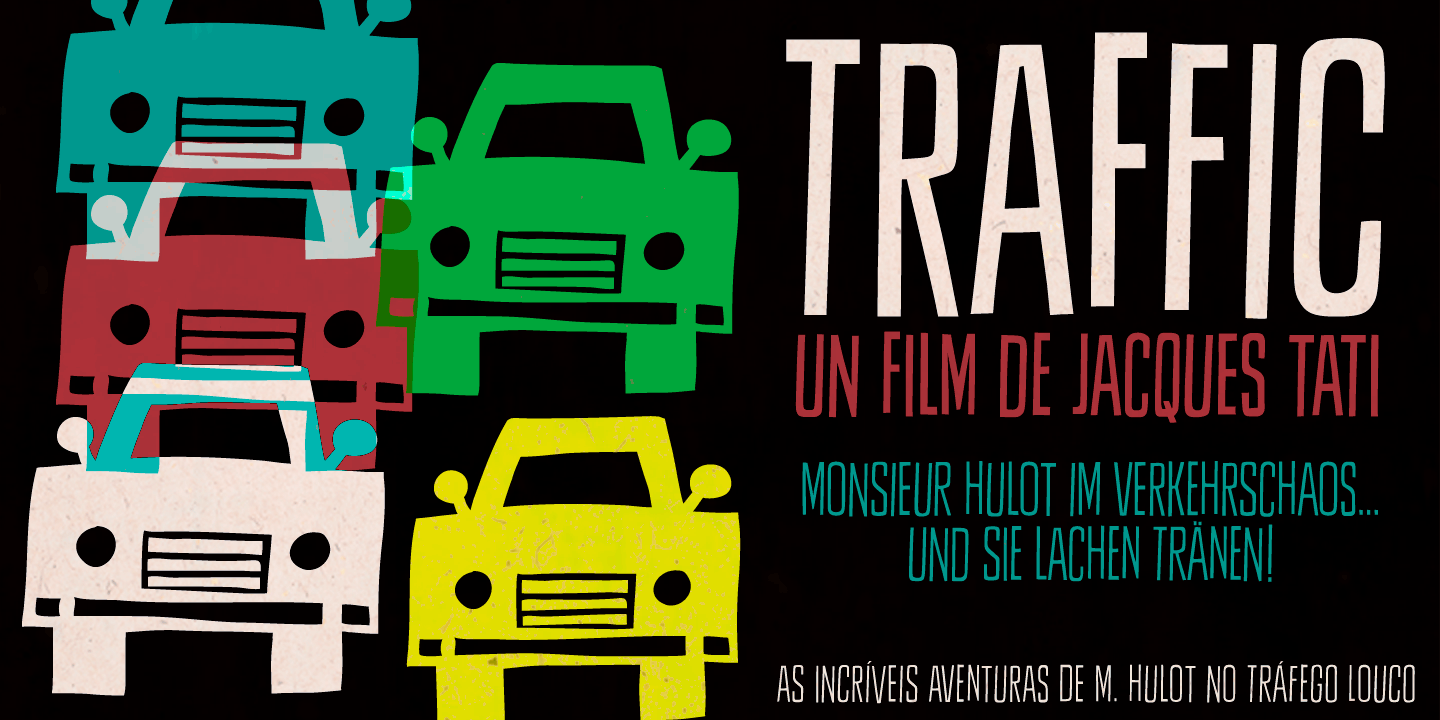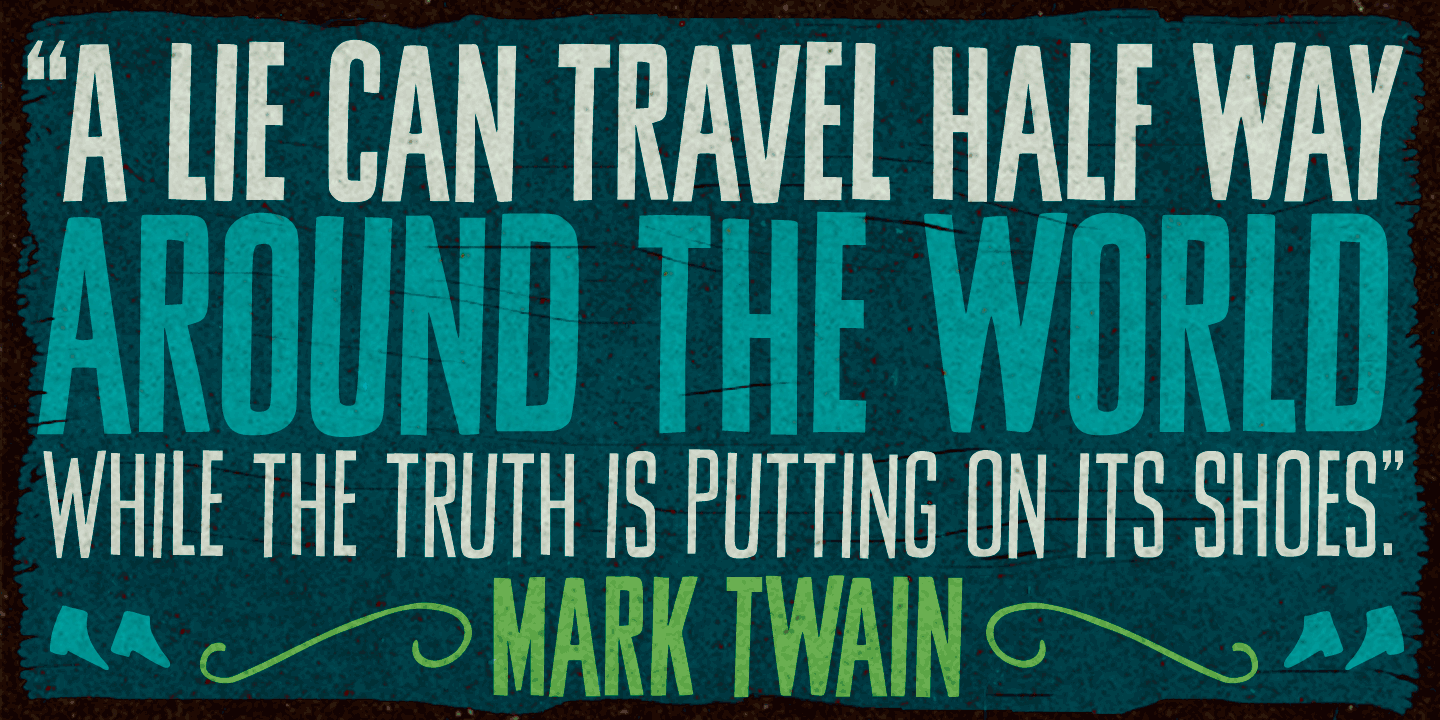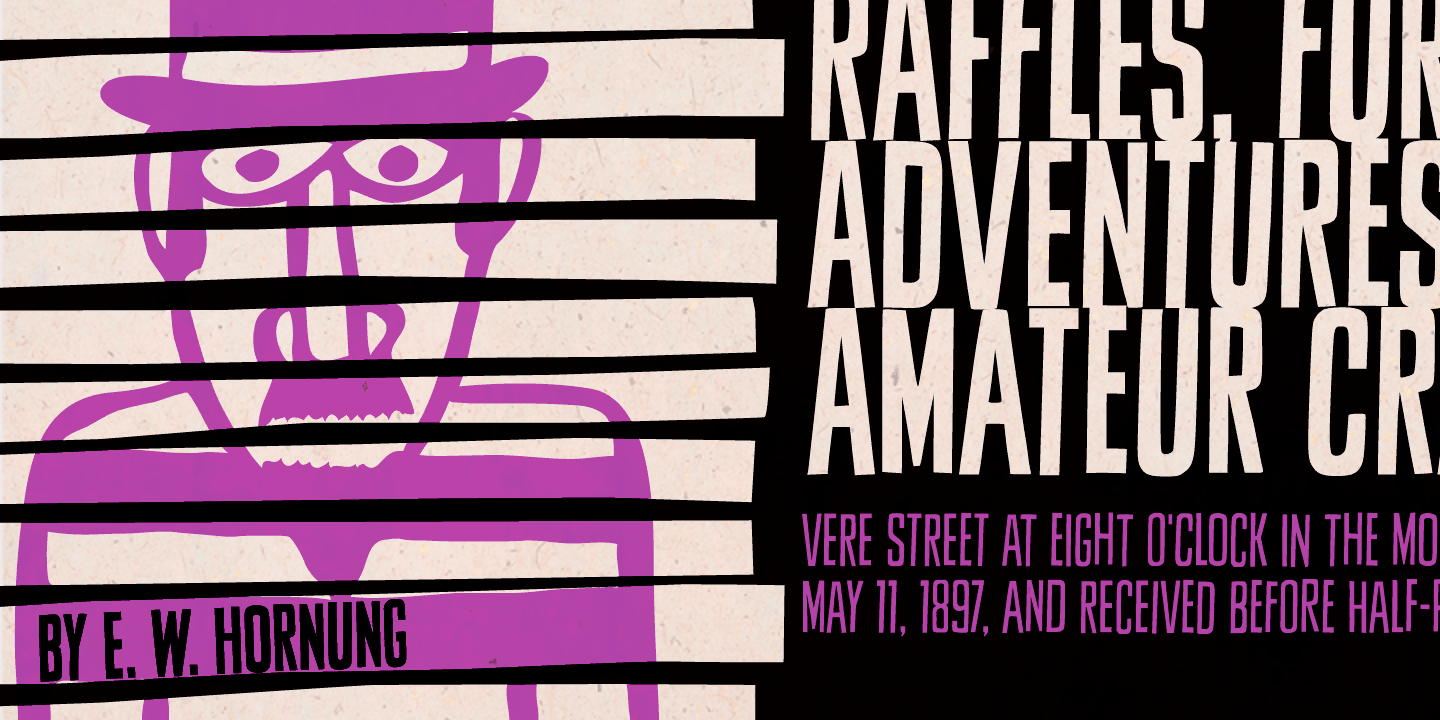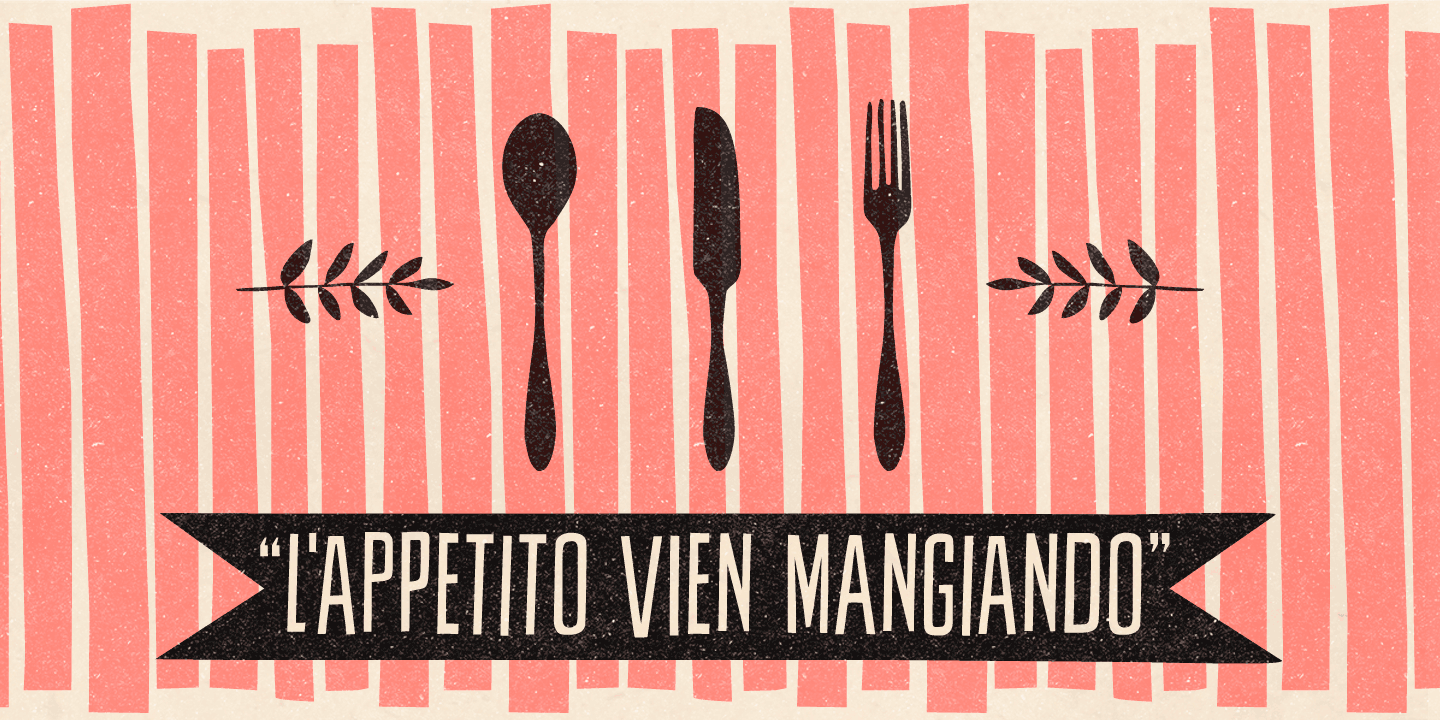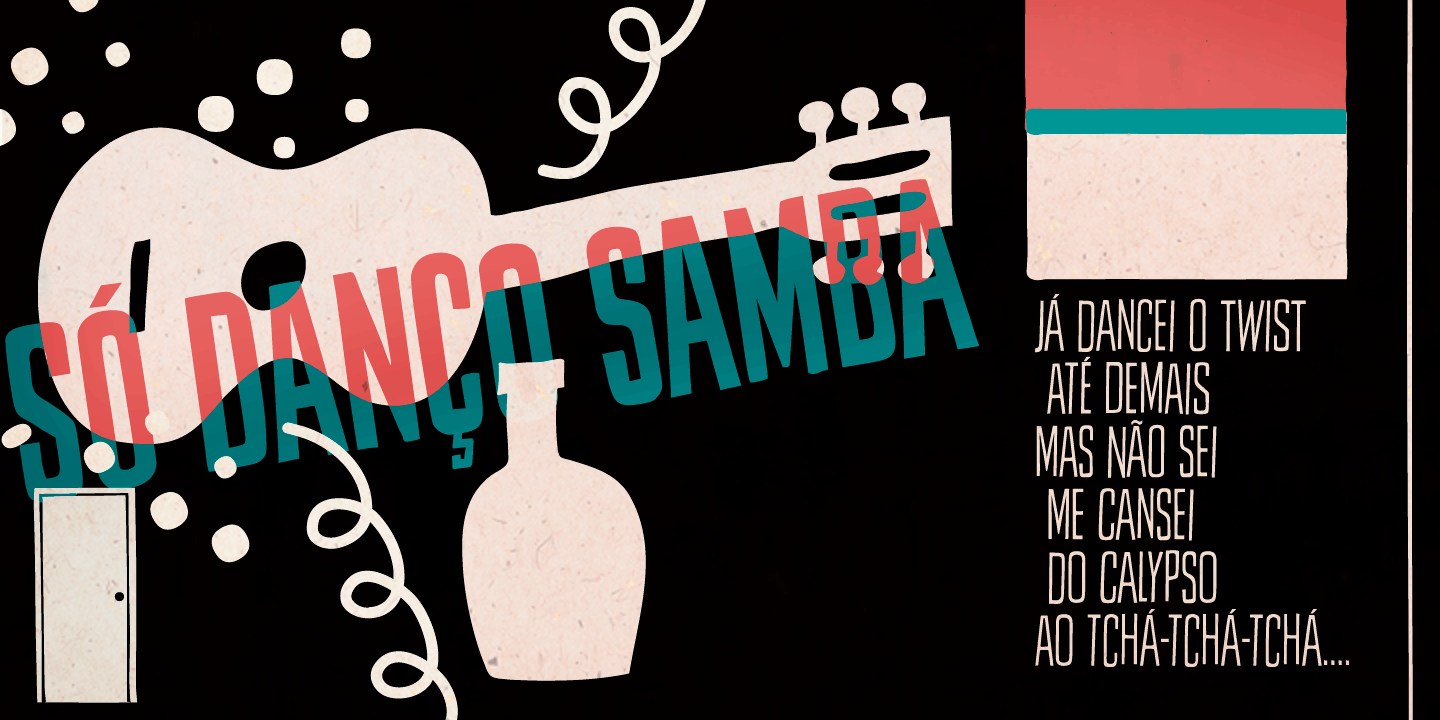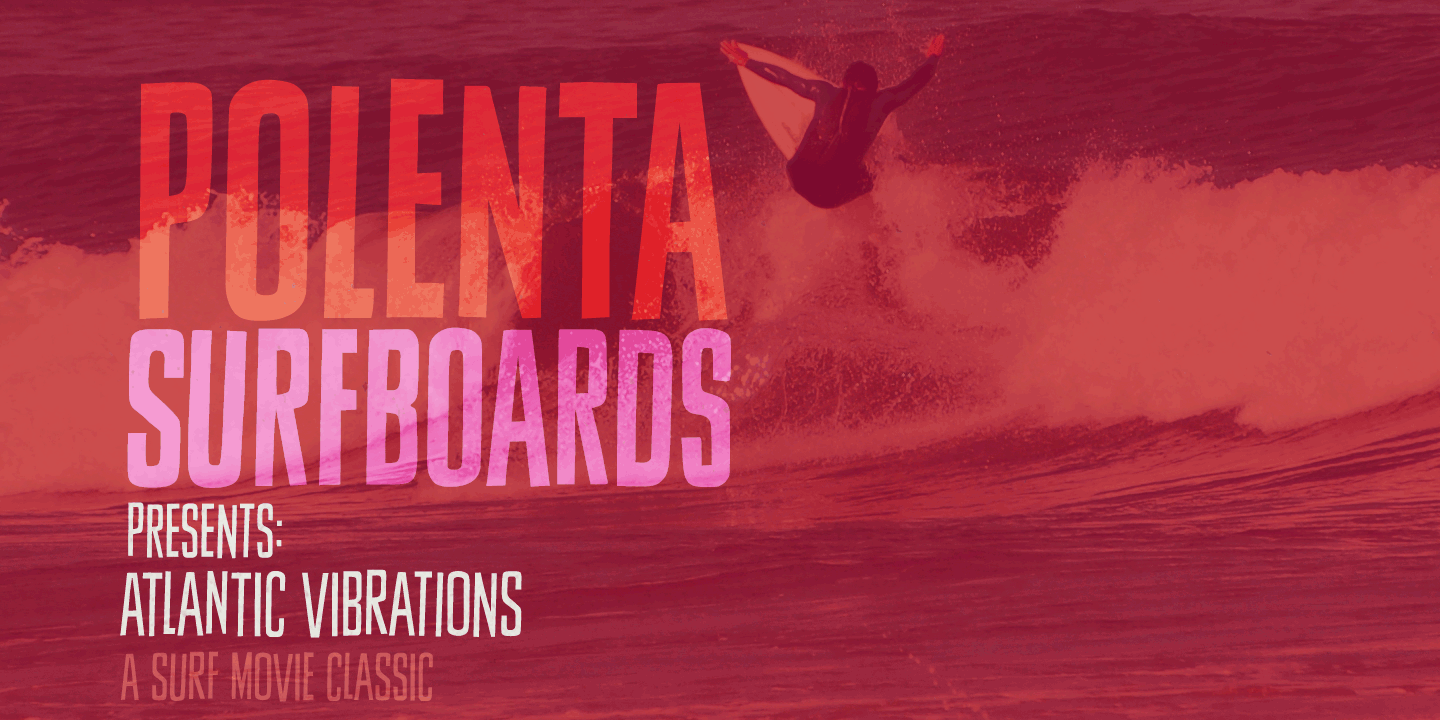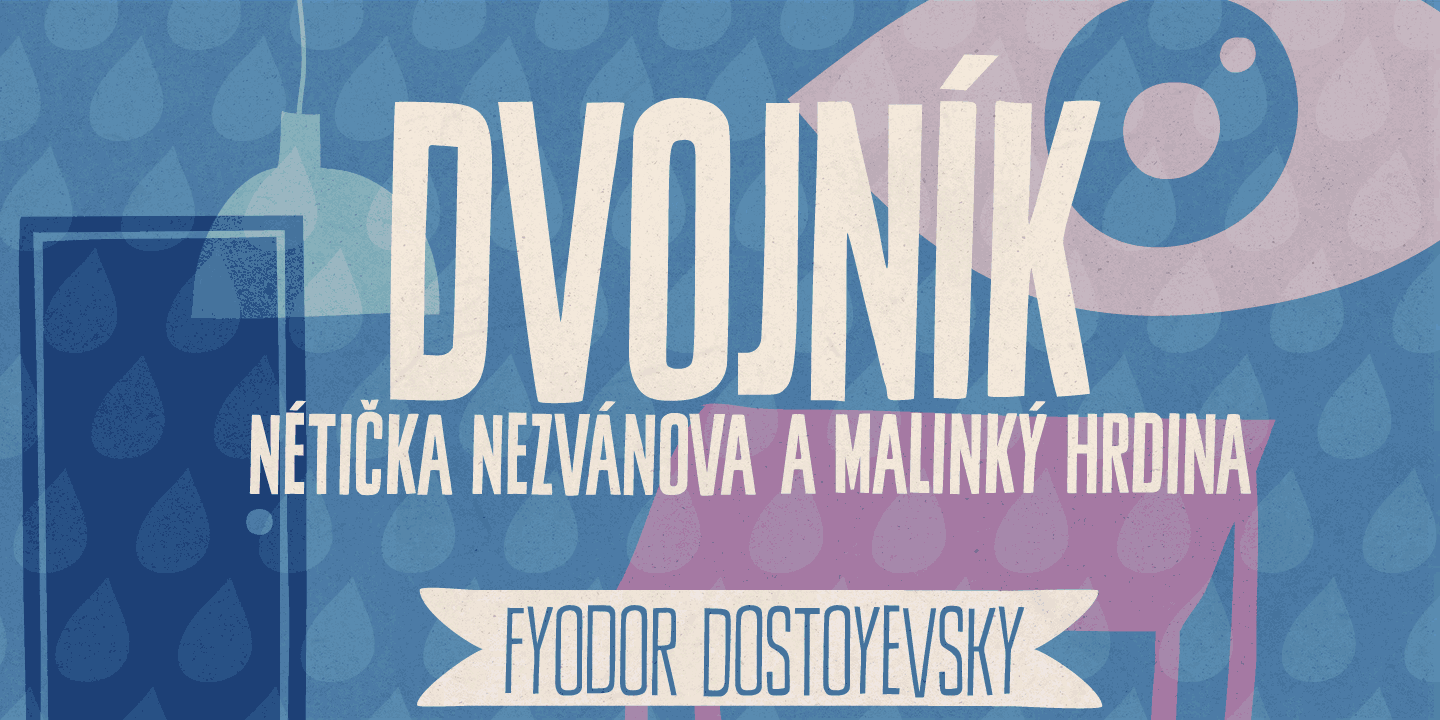
About the Sheldon Font
About Sheldon Font Family Sheldon family draws inspiration from the beautiful and eloquent posters of Polish graphic artist Marian Stachurski. Generously sprinkled with stylistic oddities, this is the perfect typeface for having some cool typographic unevenness without losing the ever-handy sans-serifness. Sheldon is an all caps font but holds different characters on upper- and lower-case slots for a more consistent handcrafted feel. Its OpenType Contextual Alternates feature manages to instantly alternate these glyphs.
The family includes 3 handy weights, so it can accommodate numerous typographic tasks. It also brings a very cool picture font, which charmingly completes this useful and visually striking font family. Have fun! Designers: Erica Jung, Ricardo MarcinPublisher: PintassilgoPrintsFoundry: PintassilgoPrintsDesign Owner: PintassilgoPrintsMyFonts debut: Feb 20, 2013 Sheldon